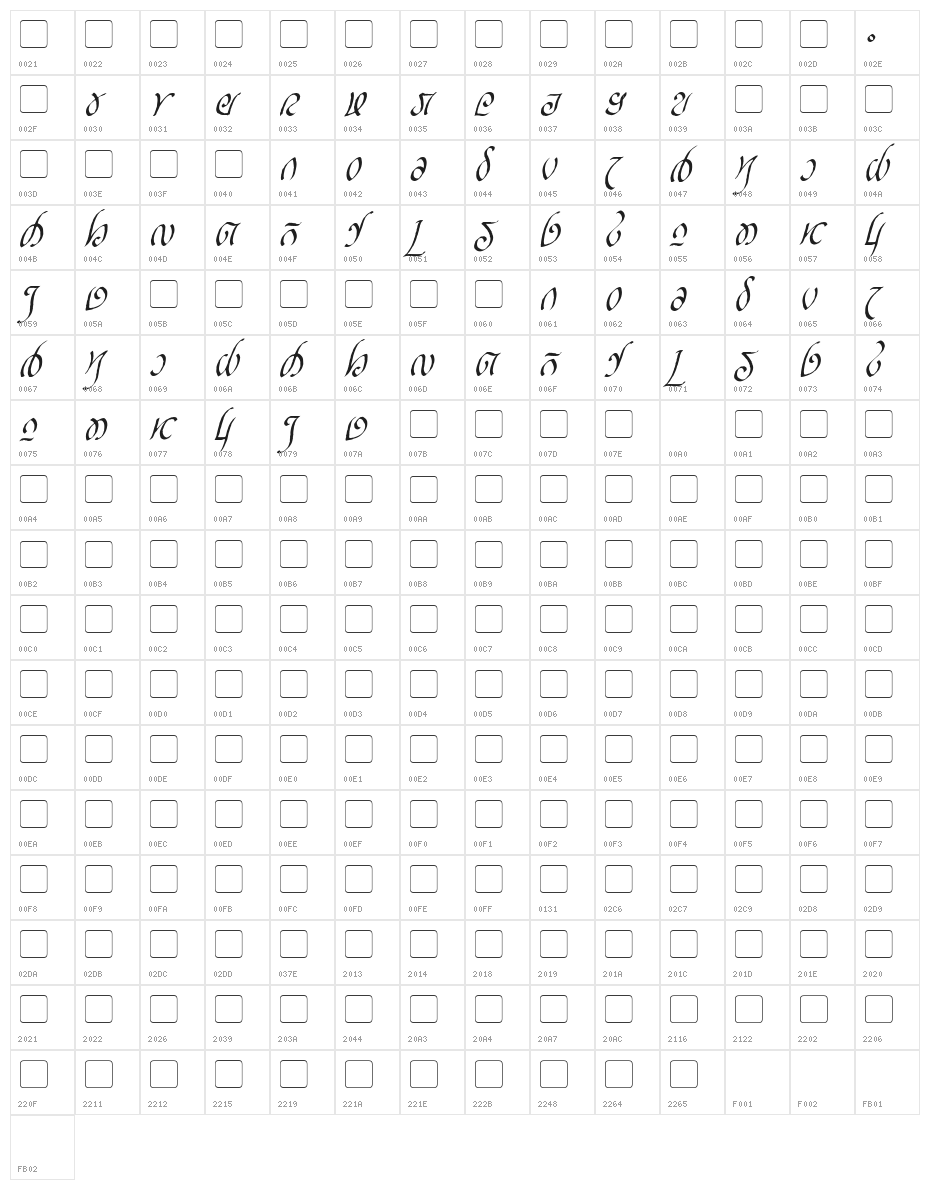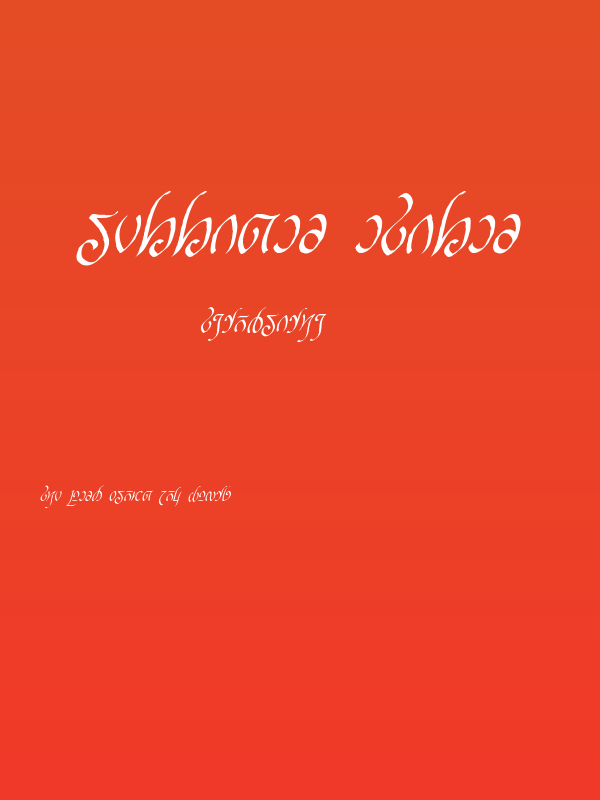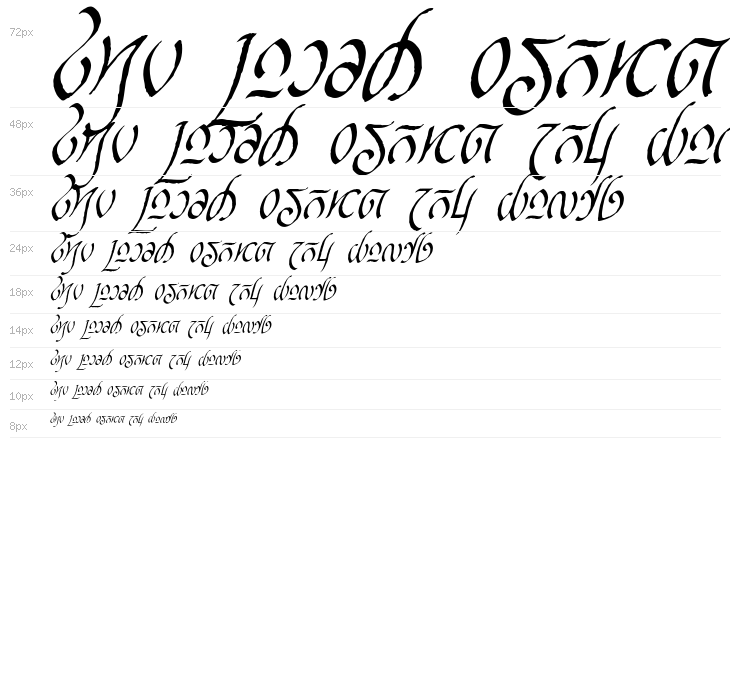
Rellanic Italic Font
Rellanic Italic Description
This font features a flowing, cursive style with elegant, sweeping strokes that give it a handwritten appearance. The characters are slightly slanted, enhancing its italic nature, and exhibit a consistent, medium weight throughout. The strokes vary in thickness, providing a medium contrast that adds to its dynamic and lively feel. The overall design is reminiscent of calligraphy, with each letter seamlessly connecting to the next, creating a harmonious and fluid text line. The font's decorative flair makes it suitable for creative and artistic projects, where a touch of sophistication and elegance is desired.
| Proposed Projects | Ideal for wedding invitations, greeting cards, artistic posters, and branding materials that require a personal touch. |